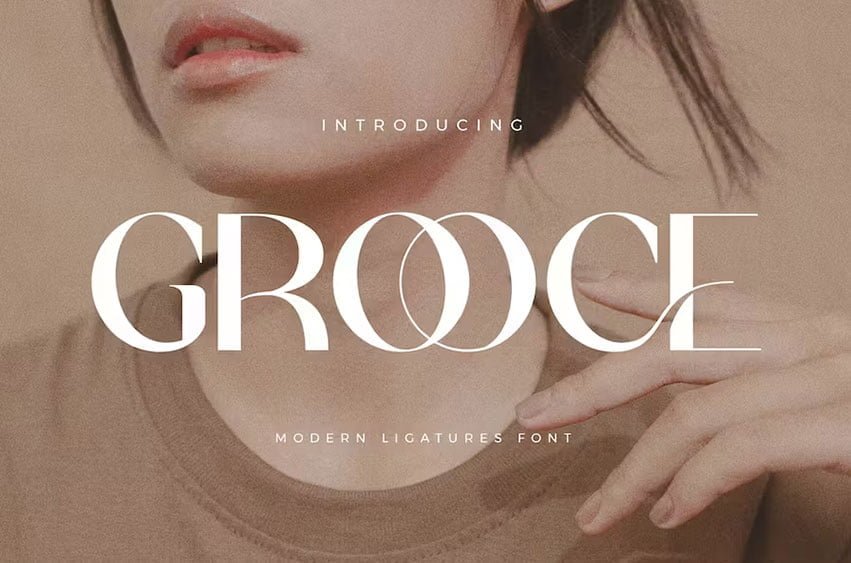
Grooce Font Sans Font Typeface inspired by the famous minimalist logo perfect for the purposes of designing templates, brochures, videos, advertising branding, logos, invitation, layout design, elegant crafting, beauty design and other.